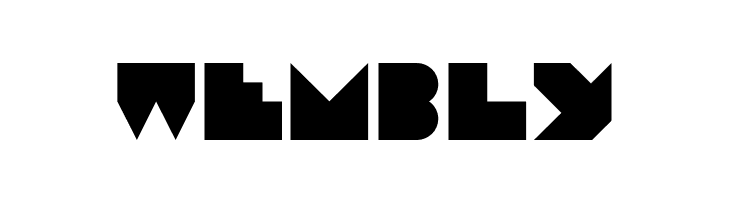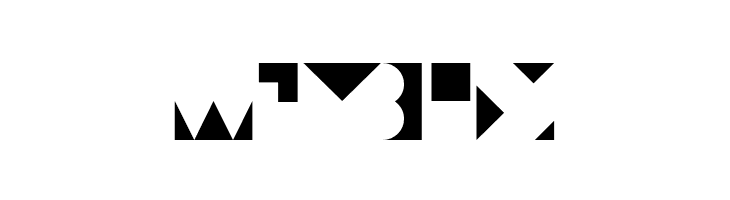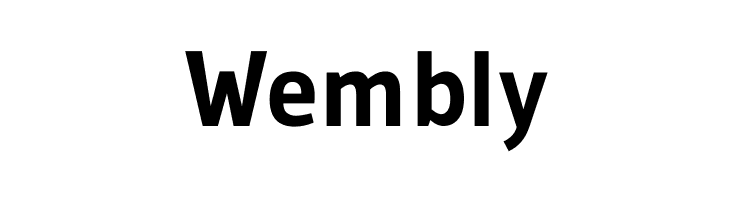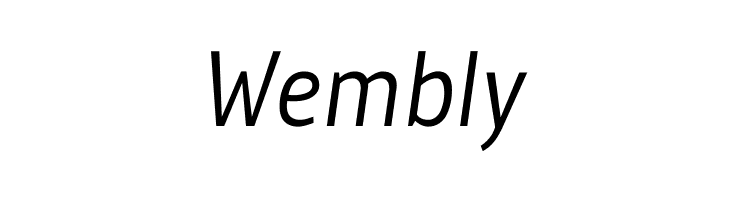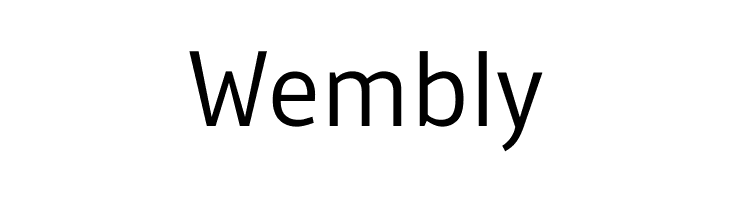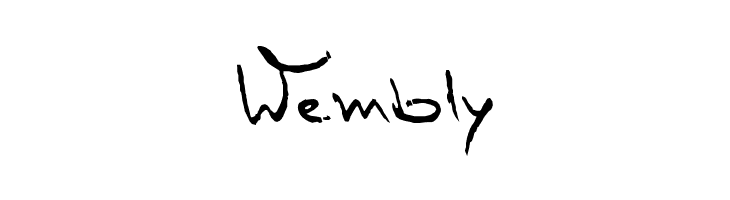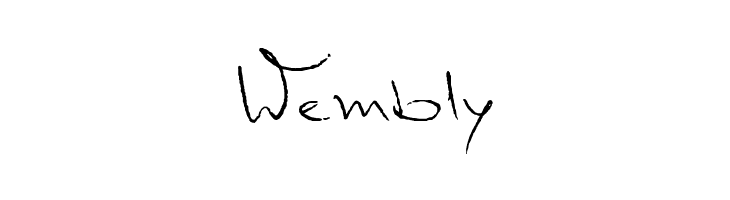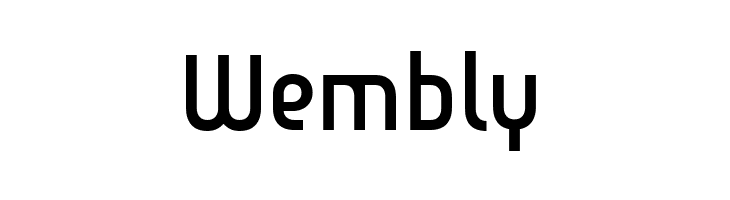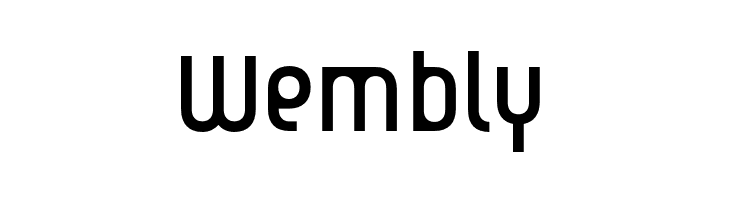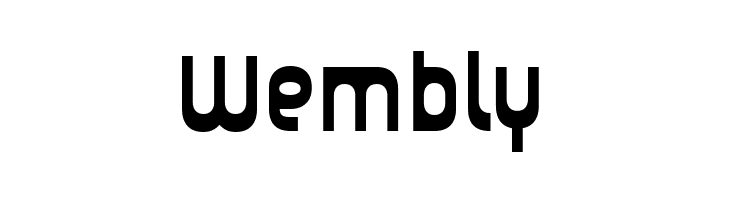
• DekoBlakk
A bold, geometric font with a modern, Art Deco-inspired design.
• DekoYello
A bold, geometric font with sharp angles and circular cutouts, ideal for decorative use.
• Gudea Bold
A bold, modern sans-serif font with clean lines and uniform strokes.
• Gudea Italic
A modern sans-serif italic font with clean lines and balanced proportions.
• Gudea
• MarleenScriptreduced-Medium
A dynamic, expressive handwritten font with fluid strokes and artistic flair.
• MarleenScriptreduced-Normal
A dynamic and expressive handwritten font with fluid, organic strokes.
• CharpentierRenaissancePro
A classic serif font with elegant, balanced letterforms and a Renaissance-inspired style.
• CharpentierRenaissancePro-Italic
An elegant, italic serif font with a Renaissance-inspired style.
• CharpentierRenaissancePro-Demi
A classic serif font with bold, elegant strokes and a Renaissance-inspired design.
• Guhly-Lightreduced
A modern, rounded font with a clean and approachable design.
• Guhly-Bookreduced
A modern, geometric font with rounded edges and a clean design.
• Guhly-Regularreduced
A modern, geometric font with rounded edges and high legibility.
• Guhly-Boldreduced
A bold, geometric font with rounded characters and a modern design.
• JosefProBold-Black